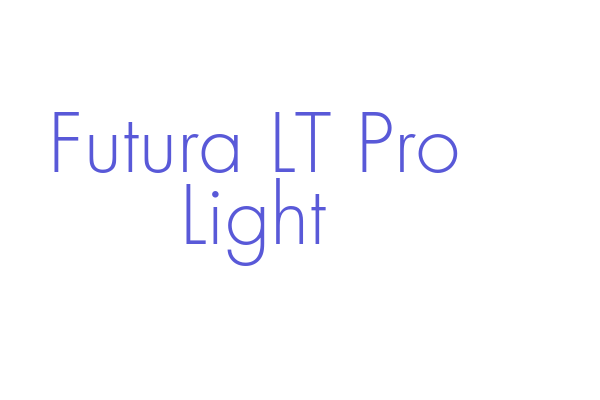
Futura LT Pro Light is a sleek and modern sans-serif font designed by Paul Renner. With its light weight and clean lines, it is perfect for creating a minimalist and sophisticated look. Ideal for use in branding, editorial design, and other projects where a contemporary and refined aesthetic is desired.
Font Name: Futura LT Pro Light
Designer: Paul Renner
Font Family: Futura LT Pro
Weight: Light